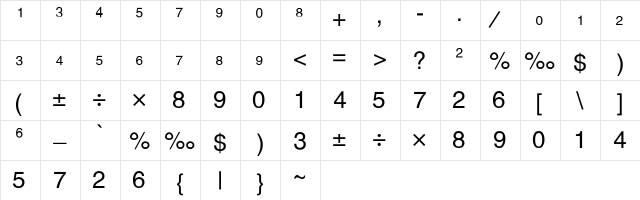
Alex-Fraction-Normal Regular
Design Context for Alex-Fraction-Normal Typeface
Alex-Fraction-Normal takes a measured approach to typography — its balanced proportions and neutral character make it a reliable workhorse for both digital and print work.